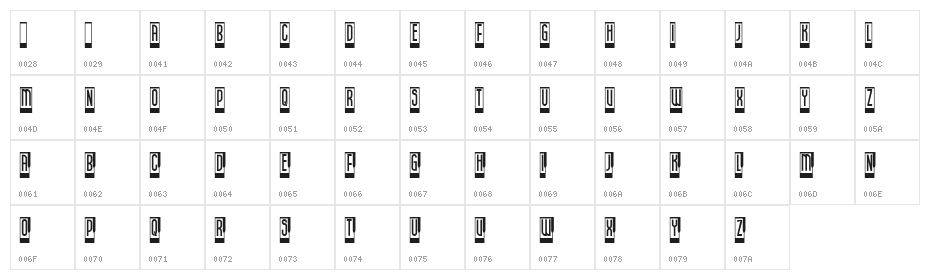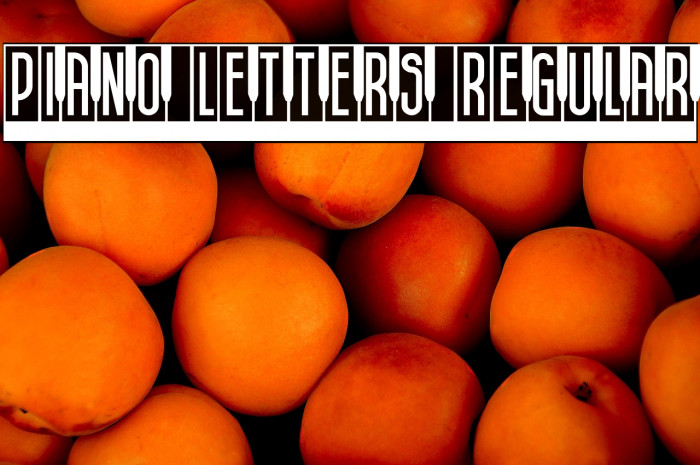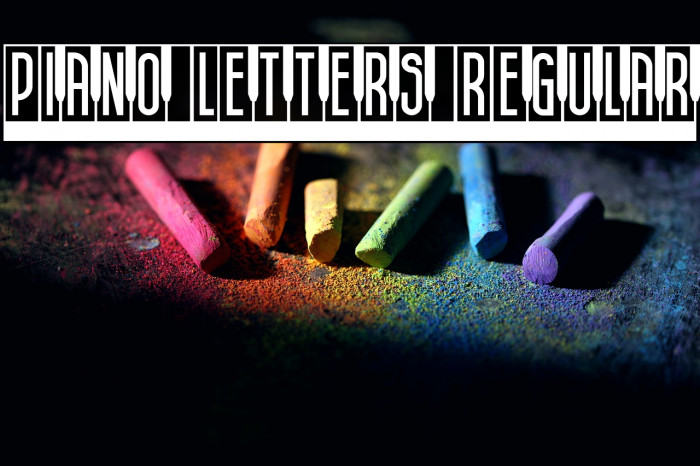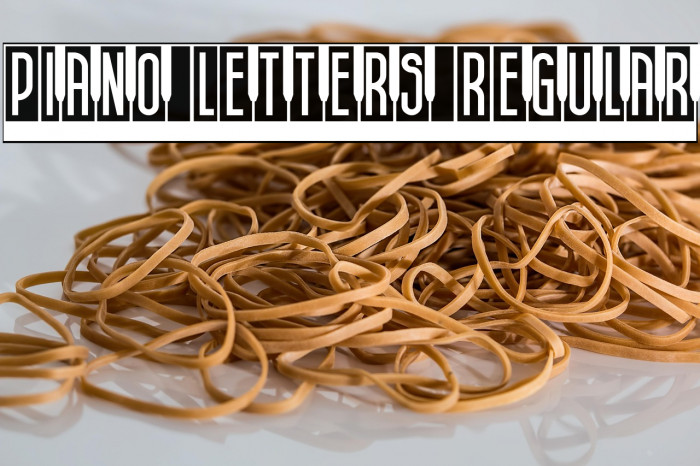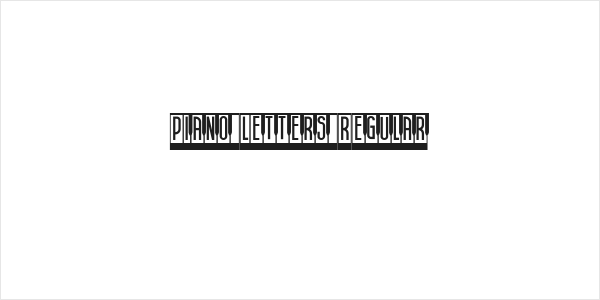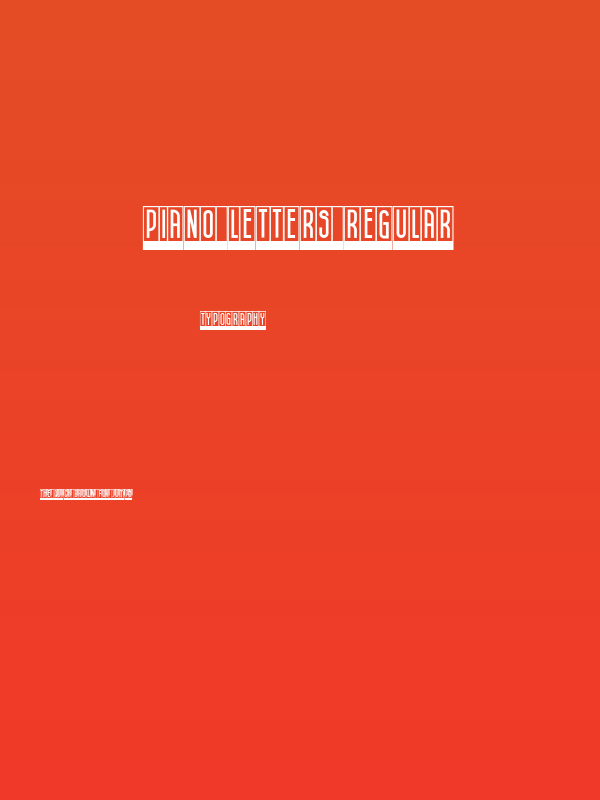
Piano Letters Regular Font
Piano Letters Regular Description
This font features a unique design that mimics the appearance of piano keys, with each character enclosed in a rectangular box that resembles the keys of a piano. The letters are tall and narrow, with a high contrast between the thick vertical strokes and the thin horizontal lines, creating a striking visual effect. The uppercase and lowercase letters maintain a consistent style, with the uppercase letters being slightly more pronounced. The numbers and special characters follow the same design principles, ensuring a cohesive look across all elements. This font's distinctive style makes it ideal for projects that require a bold and artistic touch.
| Proposed Projects | Ideal for music-related branding, concert posters, album covers, and creative design projects that require a musical theme. |